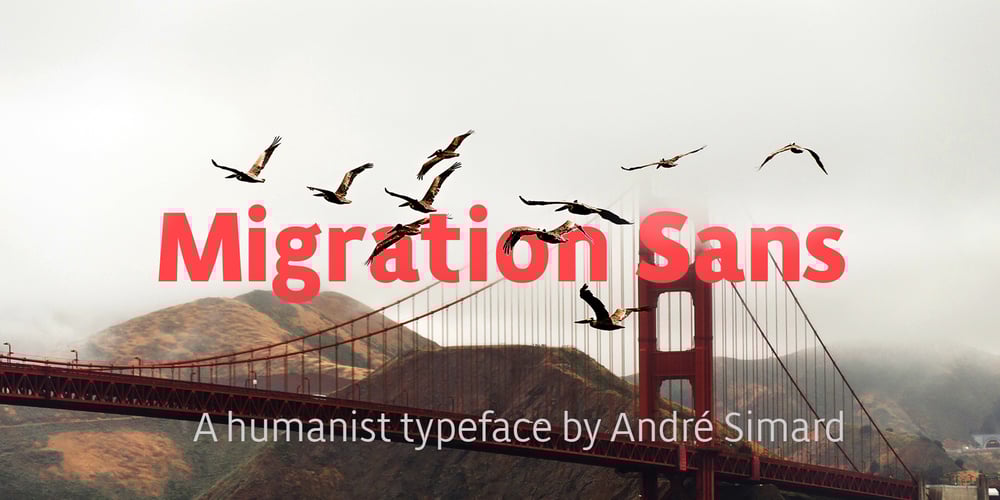
ITC Migration Sans Font Family was designed by André Simard and published by ITC. ITC Migration Sans contains 10 styles and family package options. Through his hands-on experience choosing fonts as a graphic designer, type newcomer André Simard developed a type family with a good measure of design sensibility. His ITC Migration™ Sans suite of fonts offers five readable weights that can be utilized across a variety of projects. Expect more to come from this designer-turned-typophile.